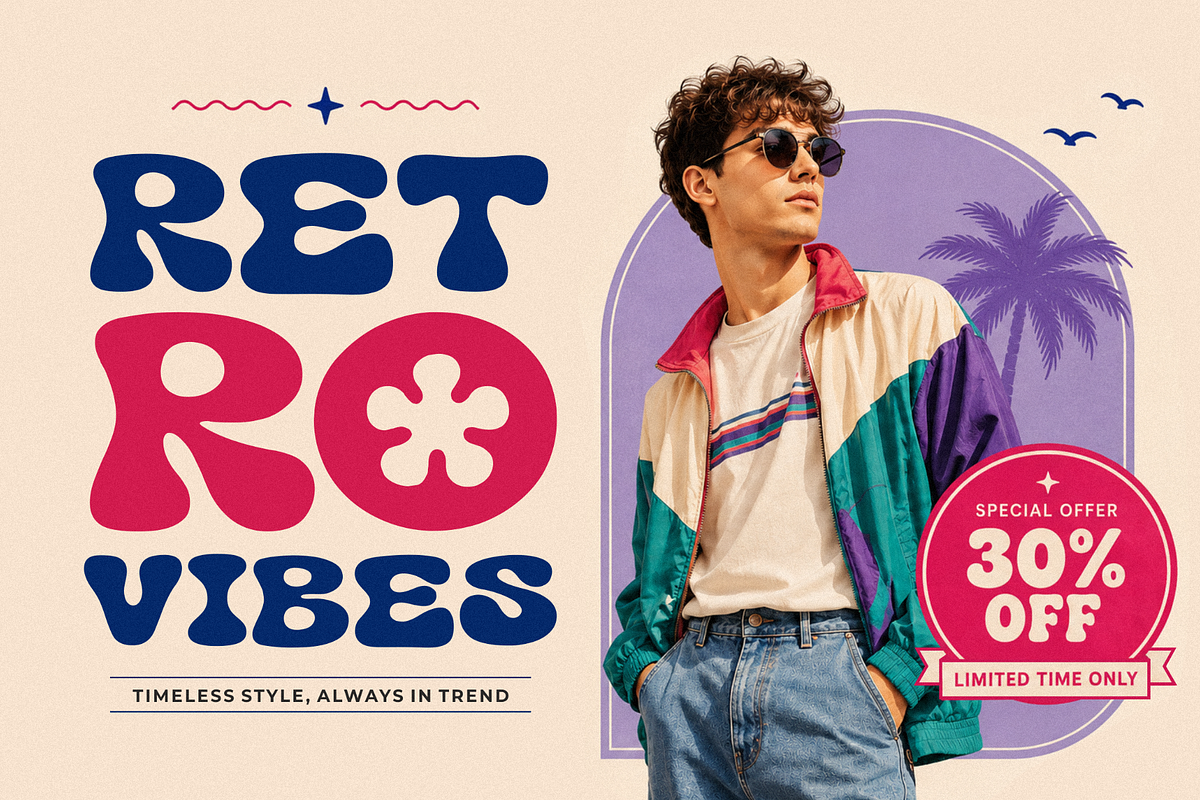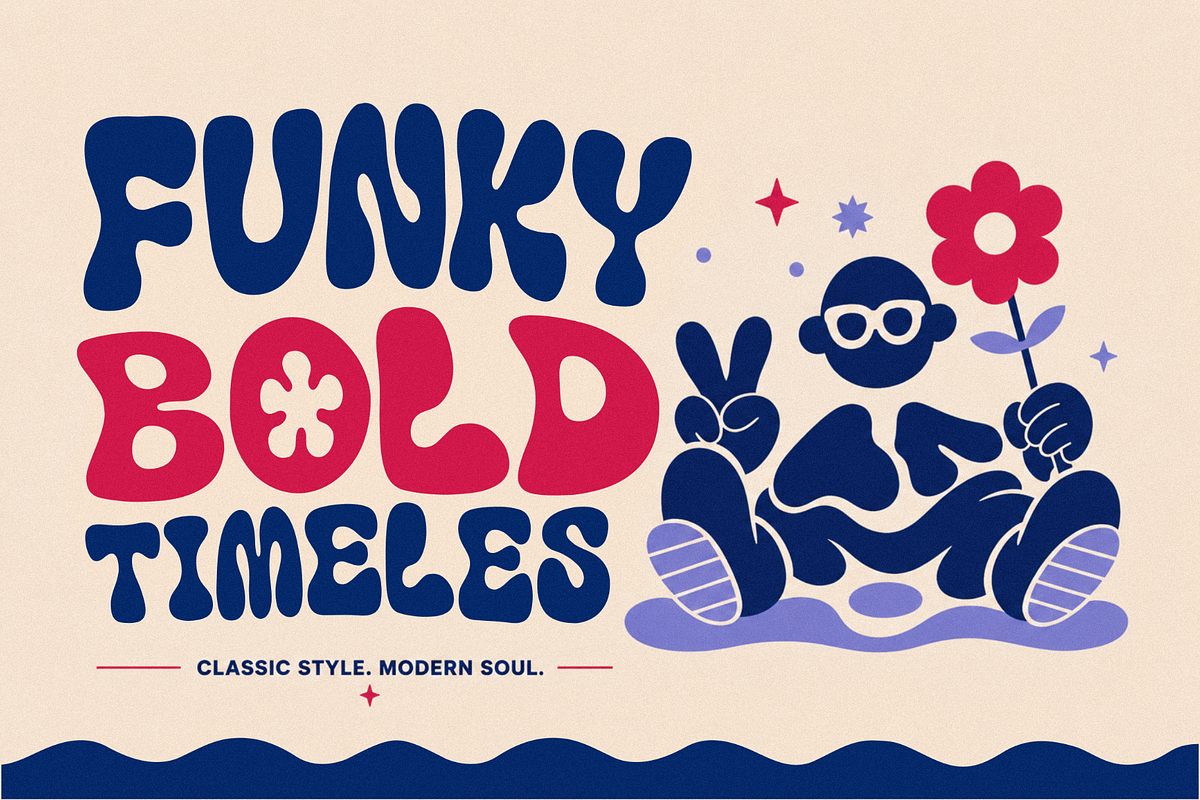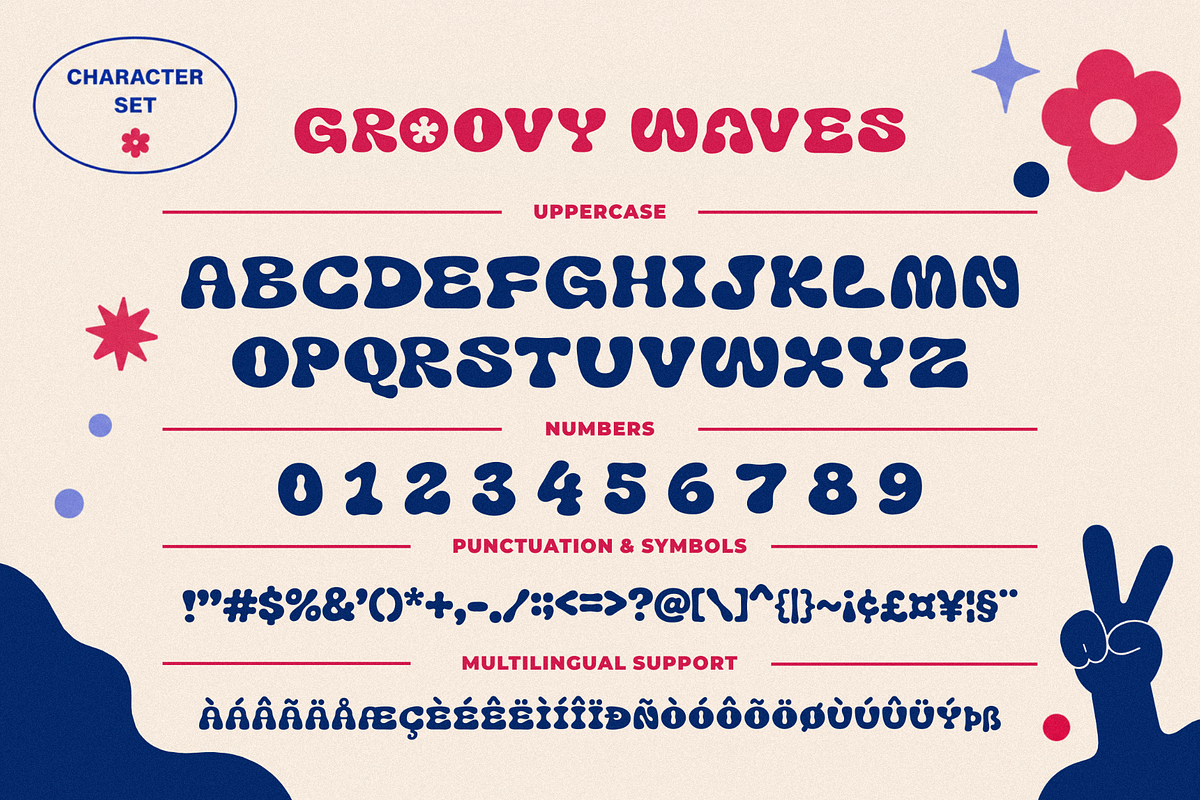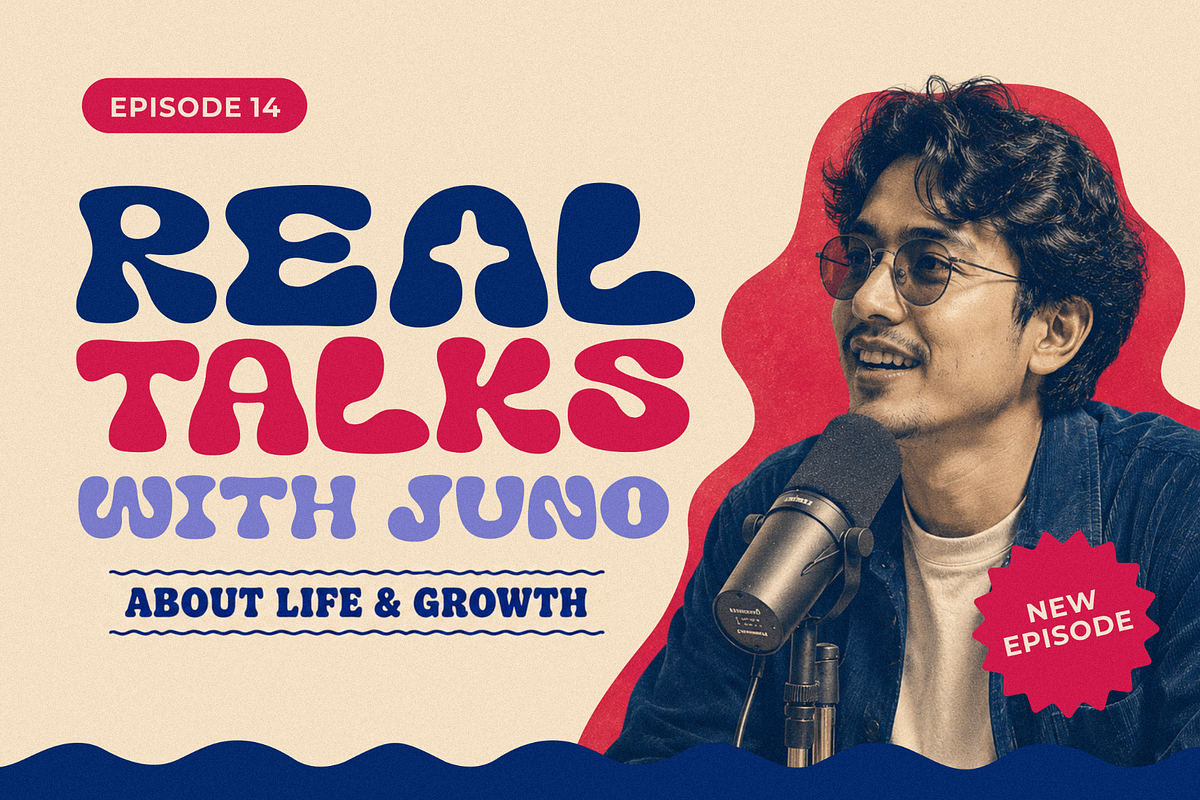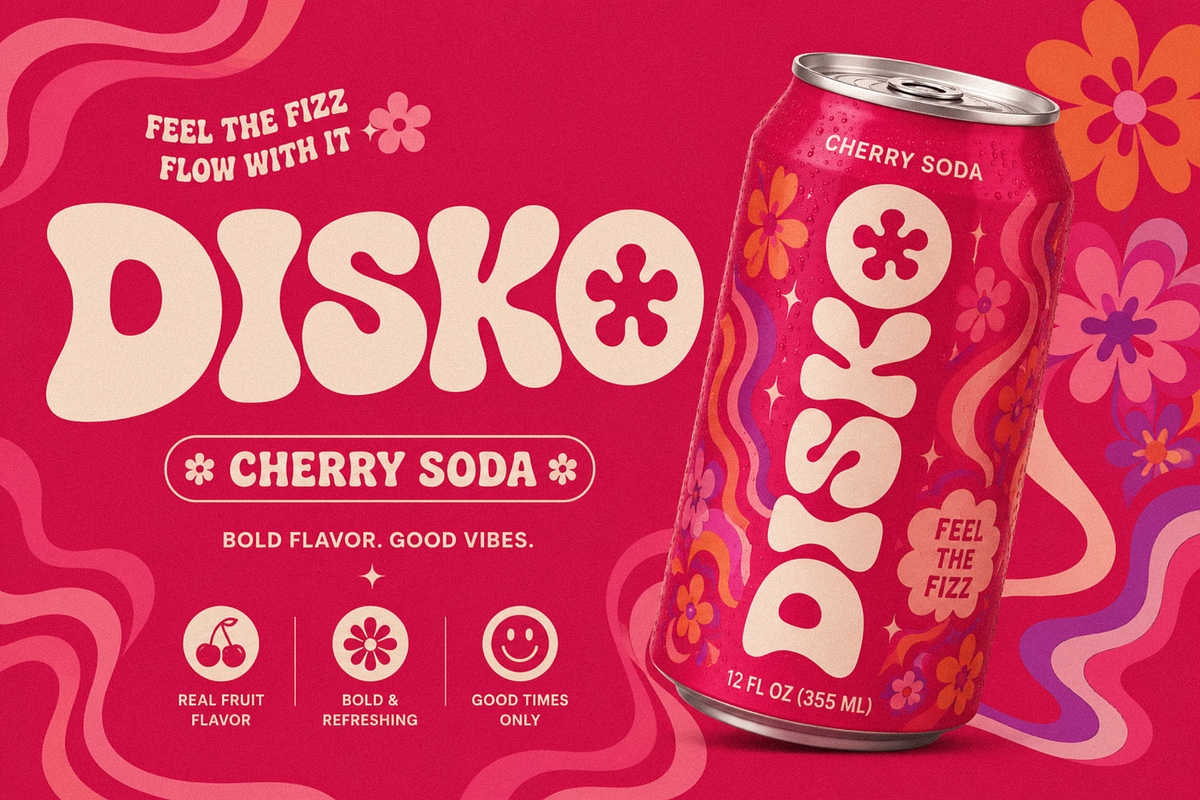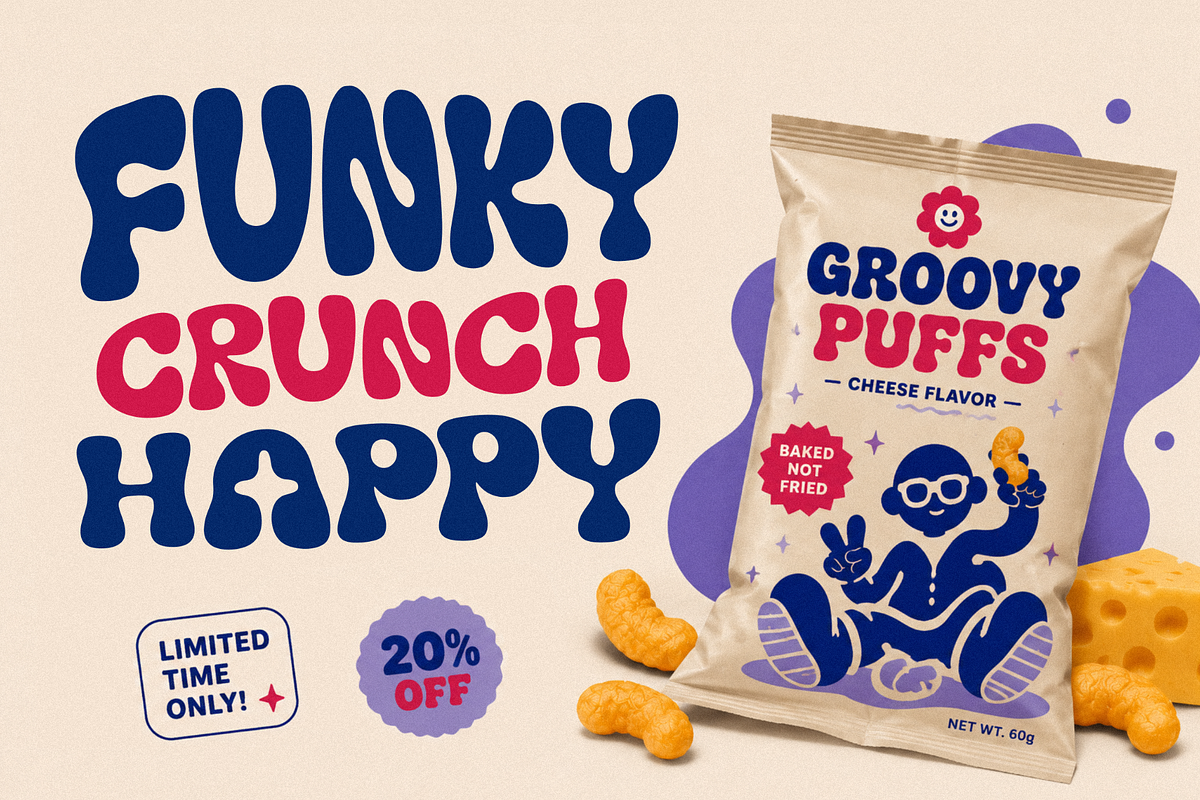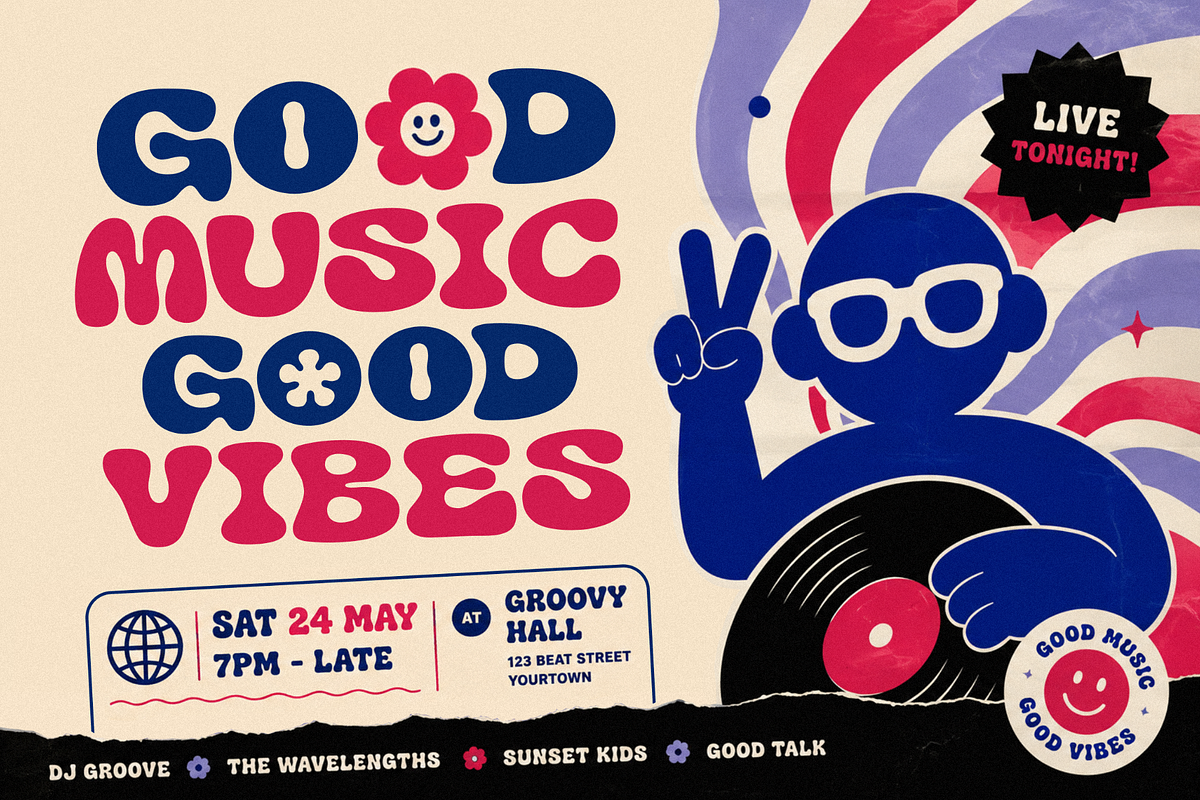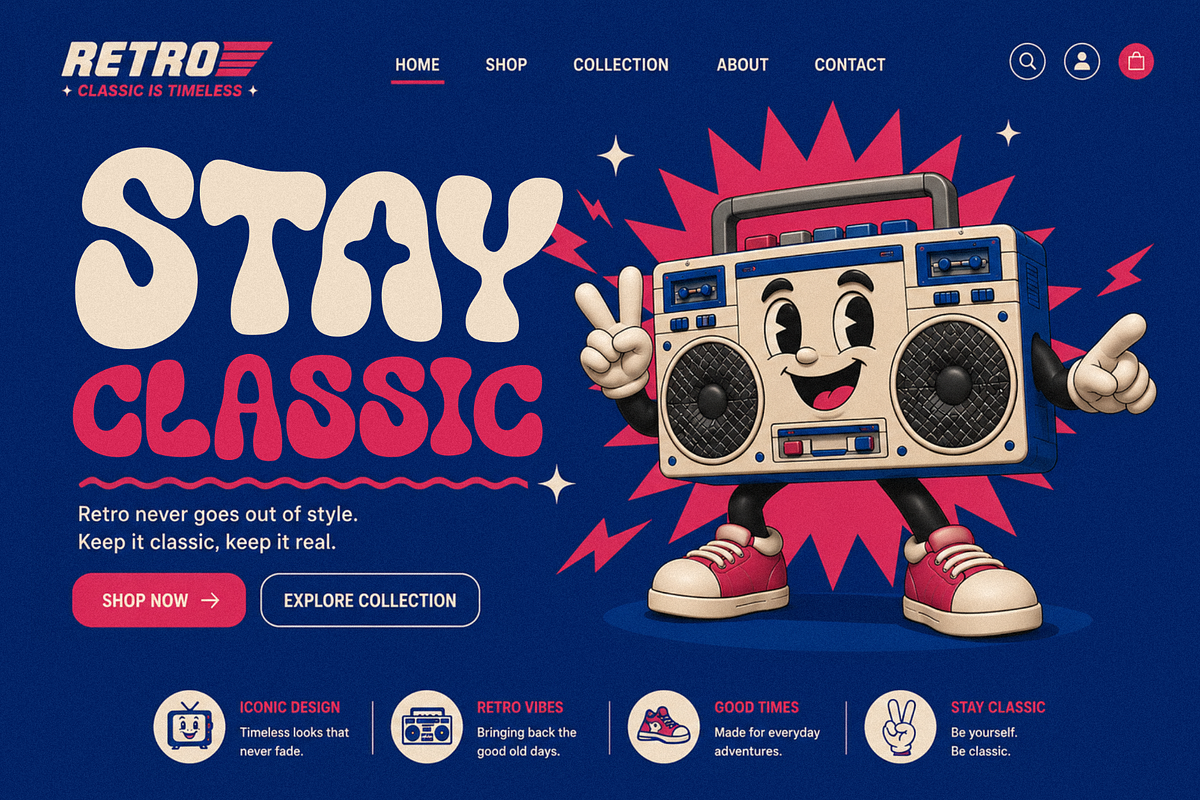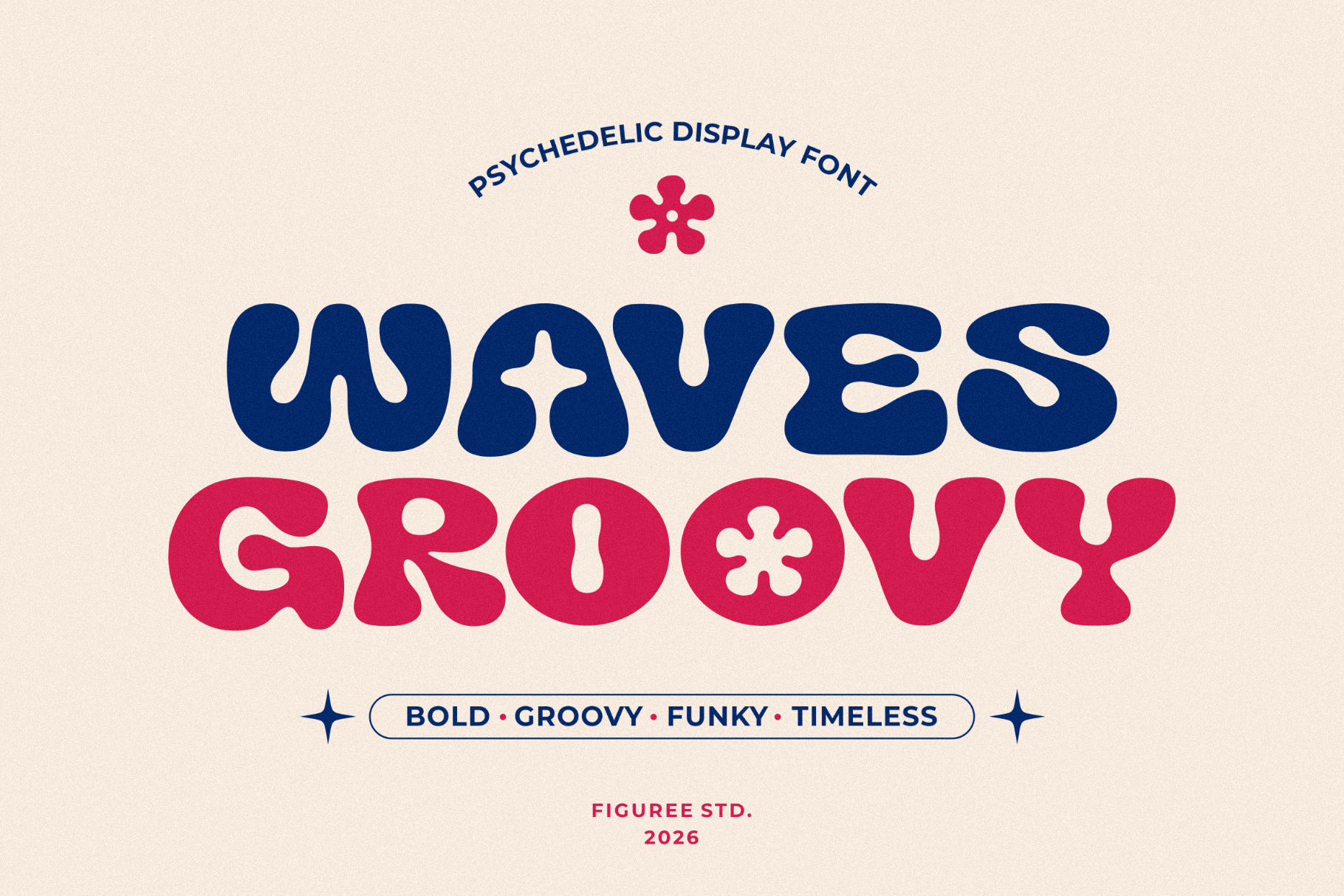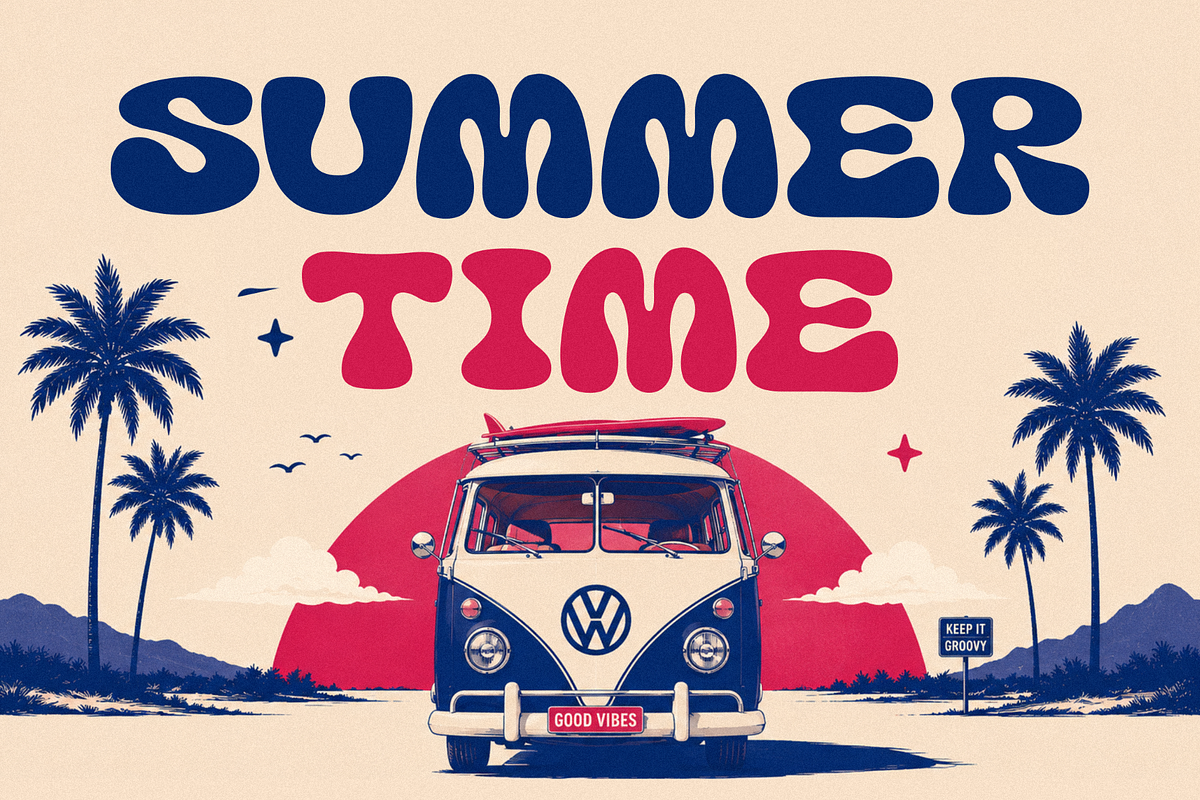
Groovy Waves - Retro Font
Bring bold retro energy into your projects with Groovy Waves – Psychedelic Retro Font. Inspired by vintage psychedelic lettering and flowing wave-shaped typography, this font is designed to create eye-catching visuals with a nostalgic retro atmosphere. Its playful curves and distorted letterforms instantly add movement and character to any layout.
Groovy Waves is built for creative projects that need a strong visual identity. From posters and music event graphics to album covers, packaging, social media content, and retro-themed branding, this font helps your typography become the center of attention. The thick all-caps design makes every word stand out clearly while maintaining its unique psychedelic personality.
The font captures the spirit of retro visual culture with warped shapes, flowing lines, and energetic forms. It works perfectly for designers looking to create vintage-inspired layouts, groovy compositions, and expressive typography with a handcrafted feel.
All Caps Typeface for bold and impactful typography.
Support Multilingual for wider language compatibility.
Psychedelic Retro Style inspired by vintage visual culture.
Wave-Inspired Letterforms with flowing and dynamic shapes.
Display Font Design suitable for large typography applications.
Clear Visual Impact for posters, covers, banners, and creative layouts.
Designers use Groovy Waves because it instantly transforms ordinary text into expressive retro typography. The distorted wave-inspired structure creates motion and rhythm, making titles feel more alive and energetic. Its bold all-caps construction allows the font to remain readable even when used in large compositions or layered graphic layouts.
The font is also flexible across multiple creative styles. It can support retro-inspired visuals, psychedelic themes, music promotions, colorful posters, digital artwork, and nostalgic branding concepts. The multilingual support helps designers create projects for wider audiences without losing consistency in typography.
Another reason creators enjoy using Groovy Waves is its ability to become the focal point of a composition. The font naturally draws attention, making it useful for headlines, cover designs, event graphics, and promotional materials where typography needs to carry the visual direction.
If you need a psychedelic retro font with strong visual movement and expressive lettering, Groovy Waves delivers a bold typographic presence for your projects. Its flowing retro shapes, all-caps style, and vintage-inspired character make it suitable for posters, album covers, music graphics, promotional materials, and creative display typography. Add this font to your collection and create visuals with an energetic retro atmosphere and distinctive psychedelic style.